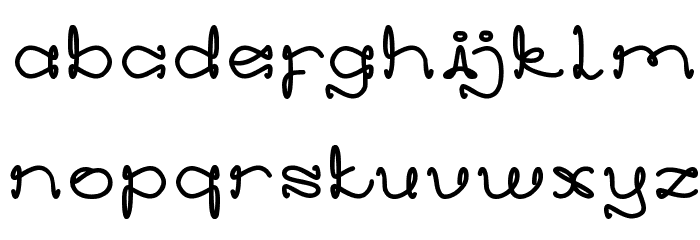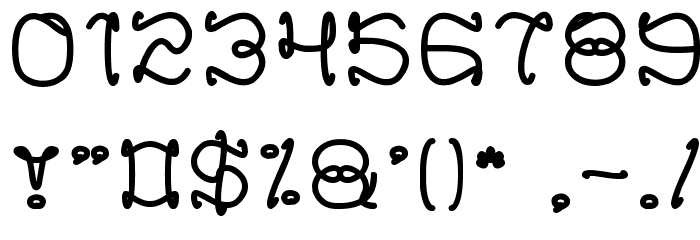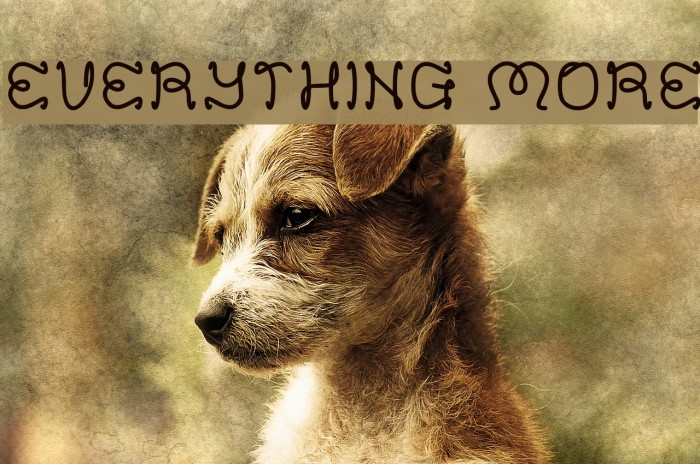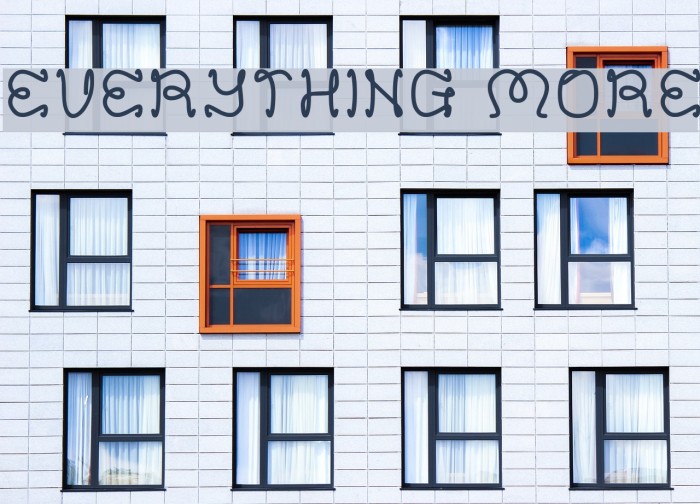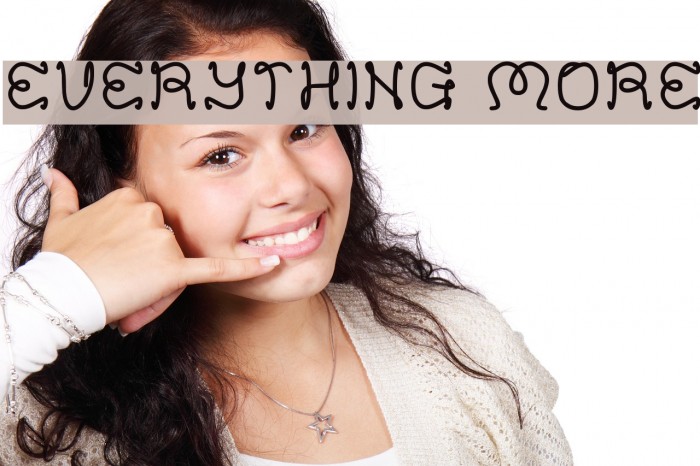
EVERYTHING MORE Font
This font features a playful and whimsical design with a handwritten style. The characters are rounded with unique loops and curves, giving it a lively and informal appearance. The uppercase and lowercase letters maintain a consistent style, with some letters featuring distinctive embellishments, such as the looped tails on 'g' and 'y'. The numbers are equally playful, with rounded edges and a consistent height. Special characters are designed to match the overall aesthetic, adding to the font's cohesive look. This font is ideal for projects that require a fun and approachable feel.
A playful, handwritten font with rounded, whimsical characters.
- Proposed Projects: Ideal for children's books, greeting cards, playful branding, and casual invitations.
- Overall Style: Playful
- Use Case: Headlines, Logos, Informal Text